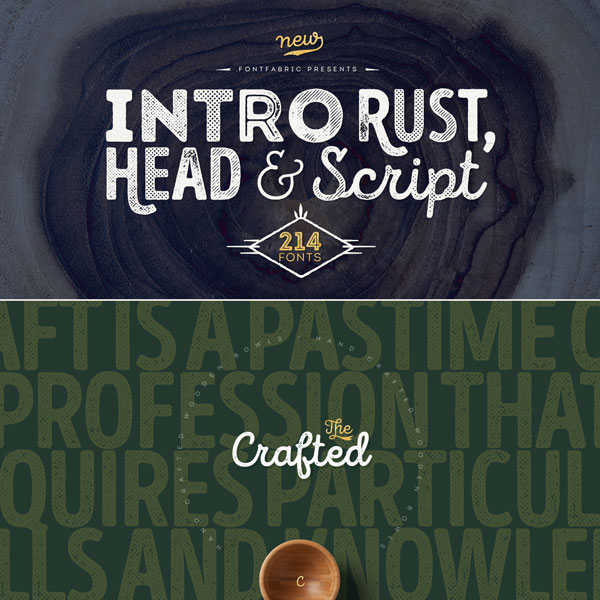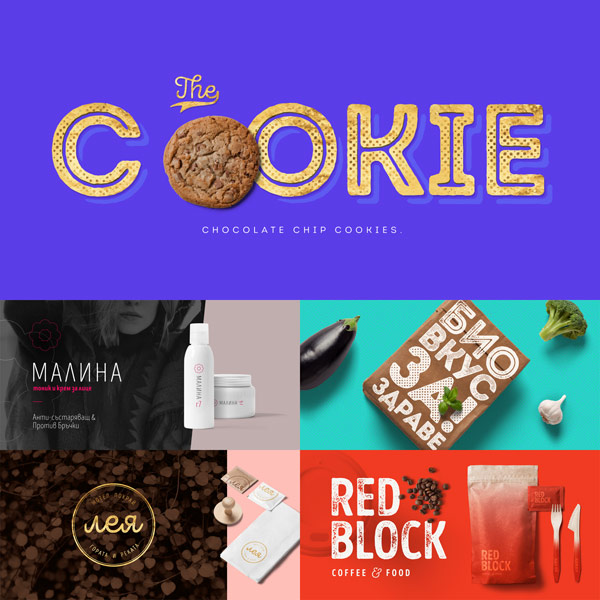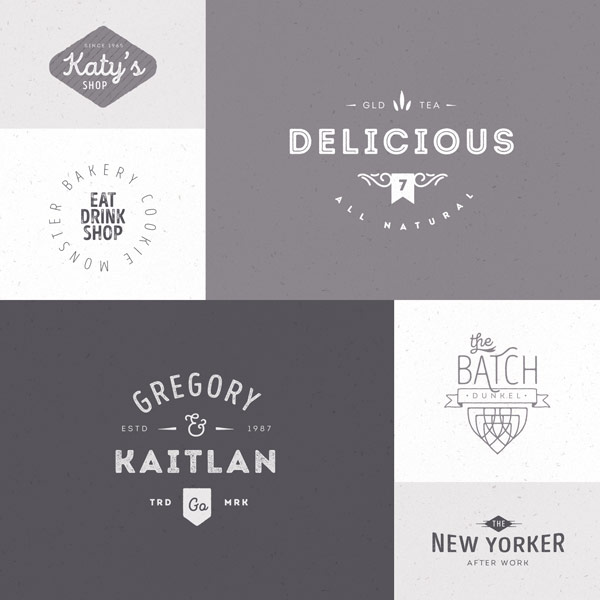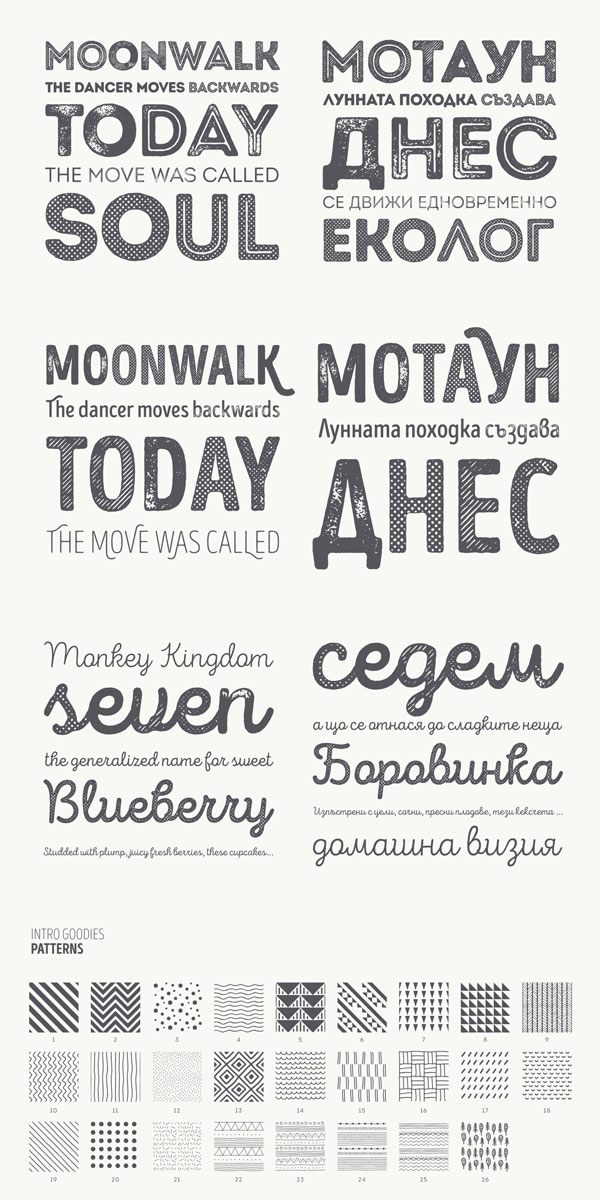
That’s Intro Rust from Fontfabric, a rough version of the famous Intro font family.
As a big fan of Fontfabric‘s popular Intro font family, I am particularly pleased about the release of Intro Rust, a huge pack of incredible 214 fonts – all designed in a rough, vintage-inspired style!
The full pack consists of 4 sub-families (Intro Rust, Intro Script, Intro Head, and Intro Goodies). Its versatile fonts and styles work great for diverse logo designs and branding projects as well as a wide variety of print and web projects. The possibilities seem endless. It’s just fun to play and experiment with all the different styles, patterns and shapes. In addition to the basic set of latin characters, Intro Rust also supports Cyrillic letters (only available in some of the styles). For further information, please follow the link below.